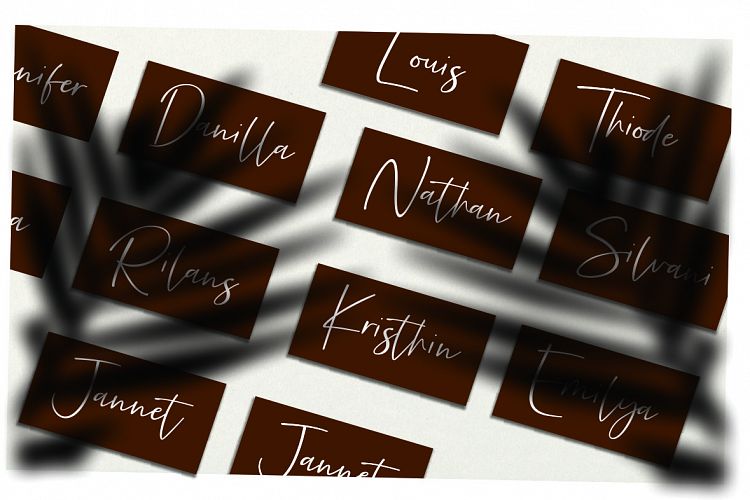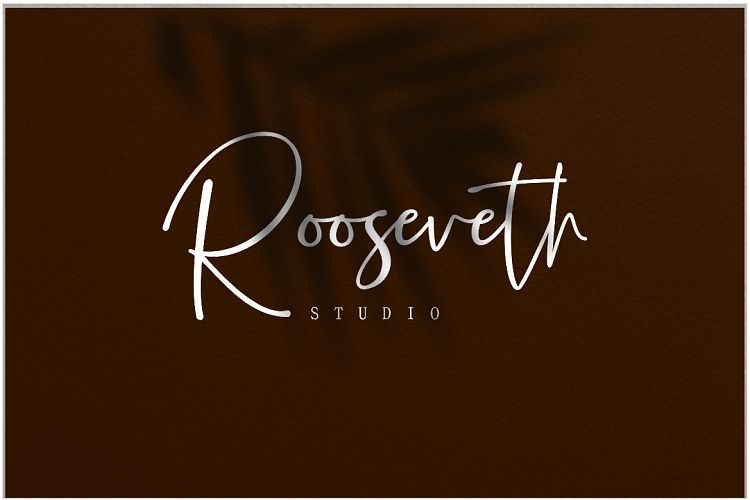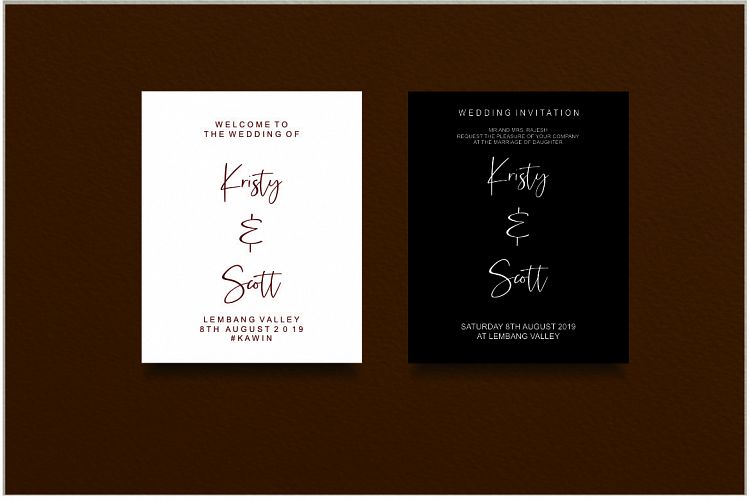
Precious Soul Script Font
Precious Soul Script Demo Font
This is a handwritten typeface with 236 total glyphs. It is made for elegant designs, including wedding invitations and stationary. Introducing Precious Soul Script Font. It is design and shared by fikryal. Precious Soul – Handwritten Font is a new modern & stylish handwritten font. I’ts Perfect for logo,branding, invitation, tittle, wedding designs, social media posts, advertisements, product packaging, product designs, label, photography, watermark, special event,magazine,web design,etc.